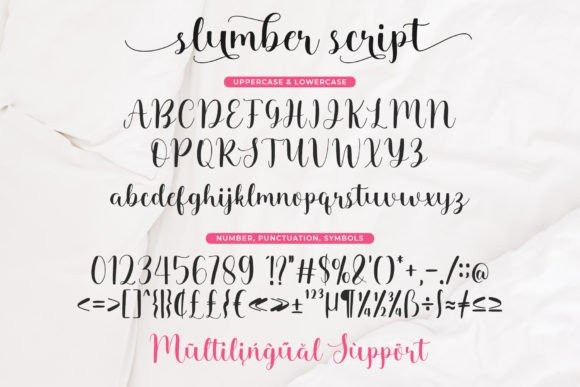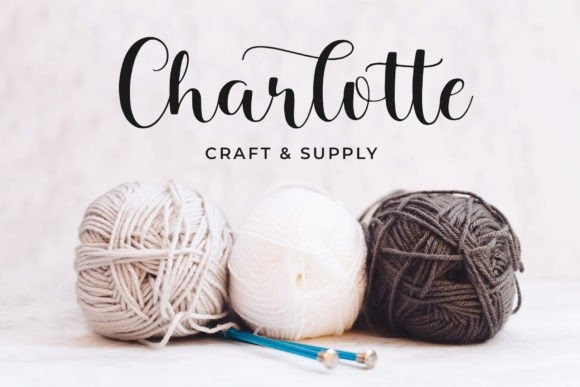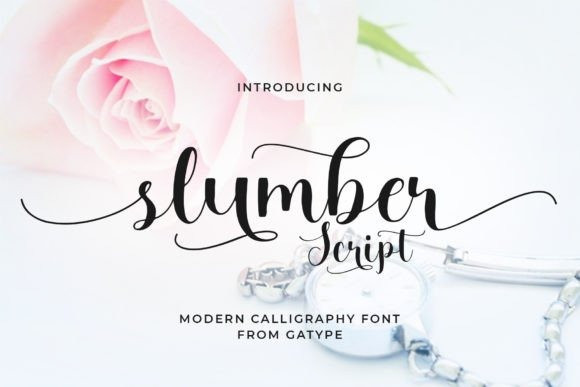
Slumber Script Font
Slumber Script Font by Gatype 13,624 downloads
Slumber Script Font
Slumber Script Font is an enchanting handwritten font. This versatile script font has a wide spectrum of applications ranging from greeting cards to headlines and is guaranteed to add a romantic feel to your next project.